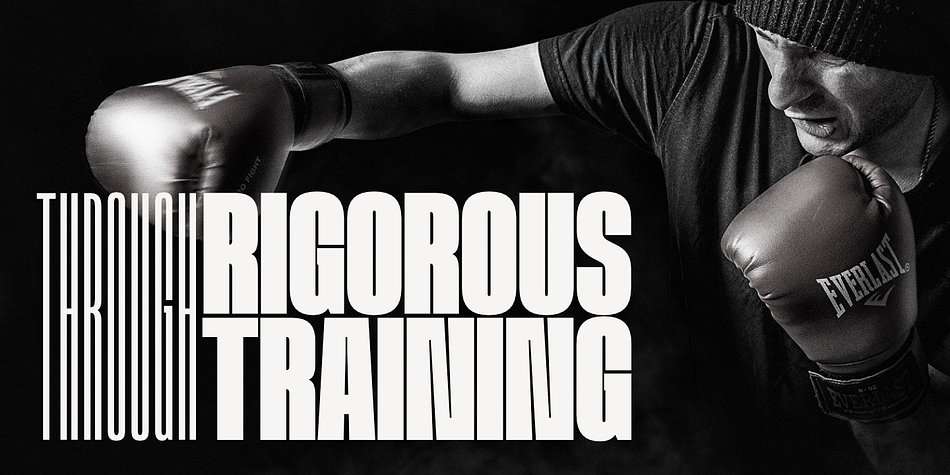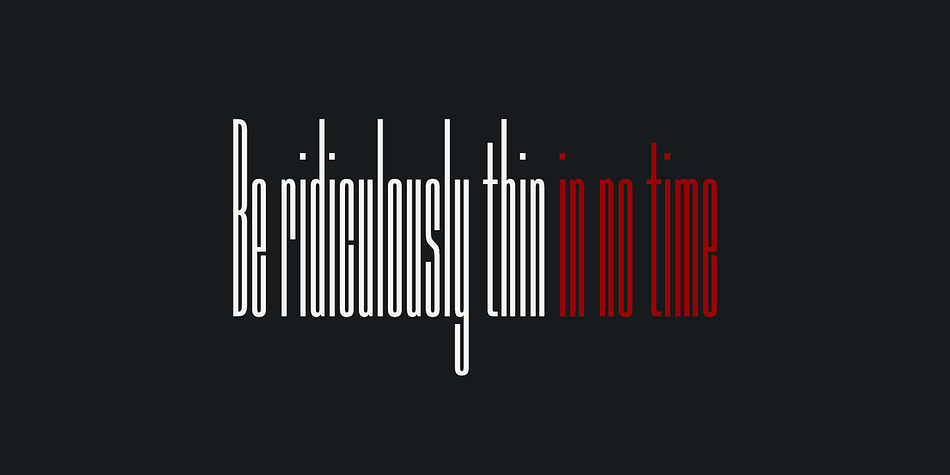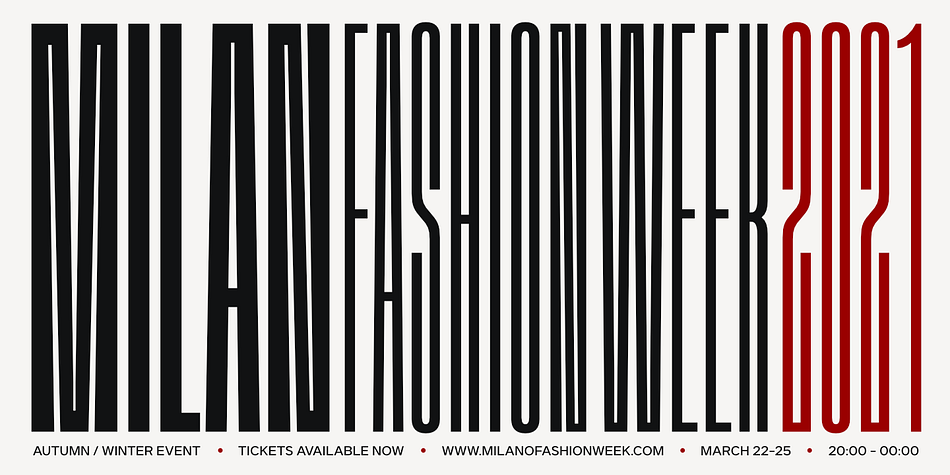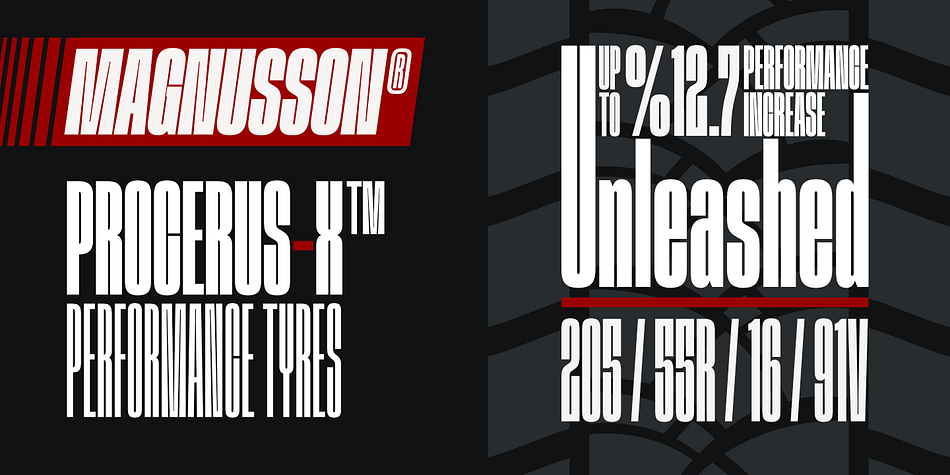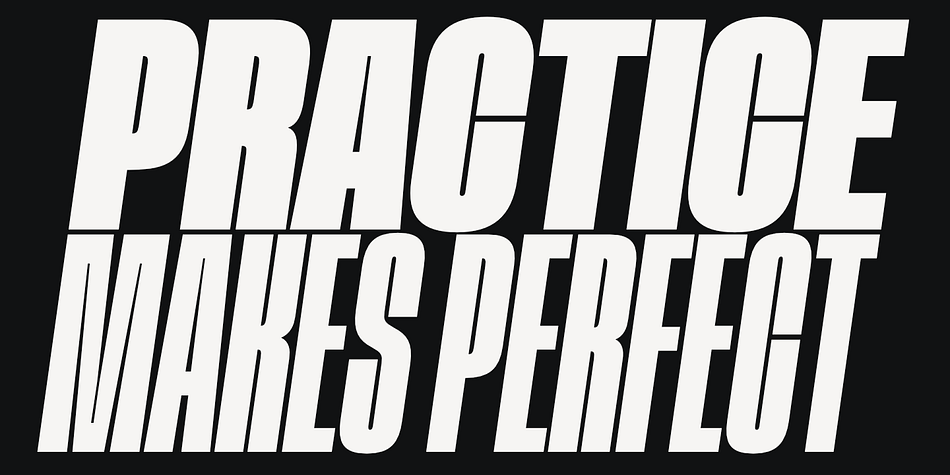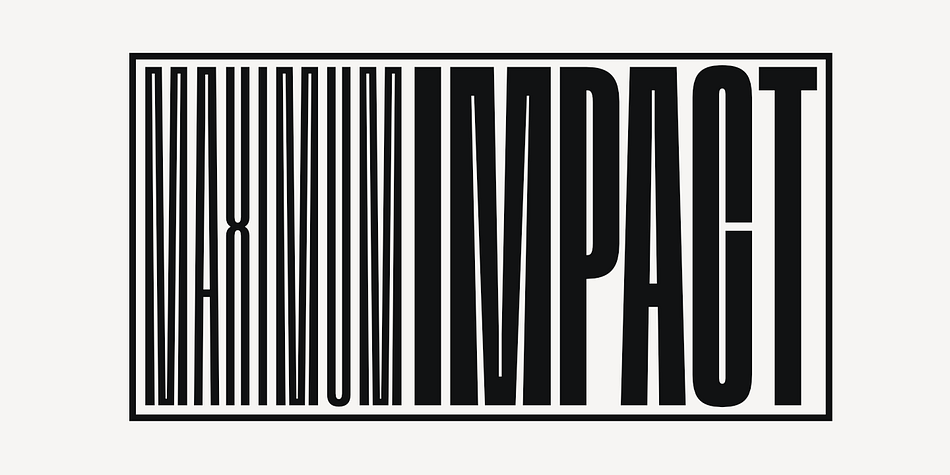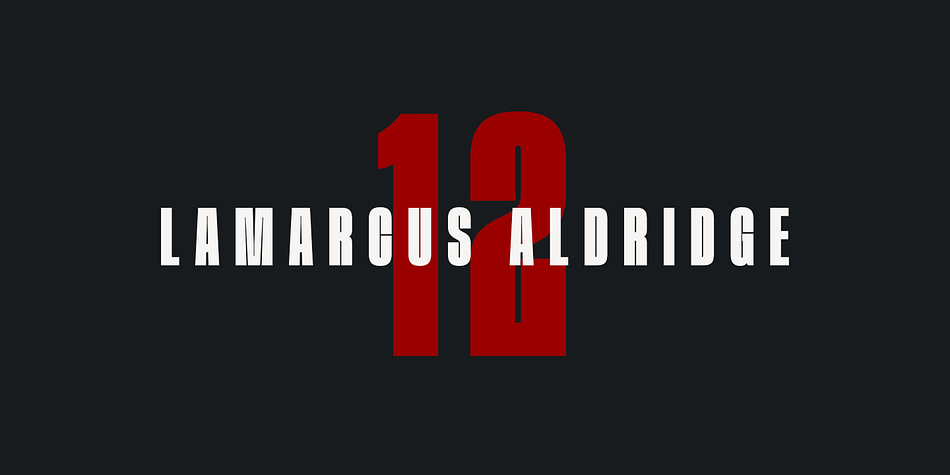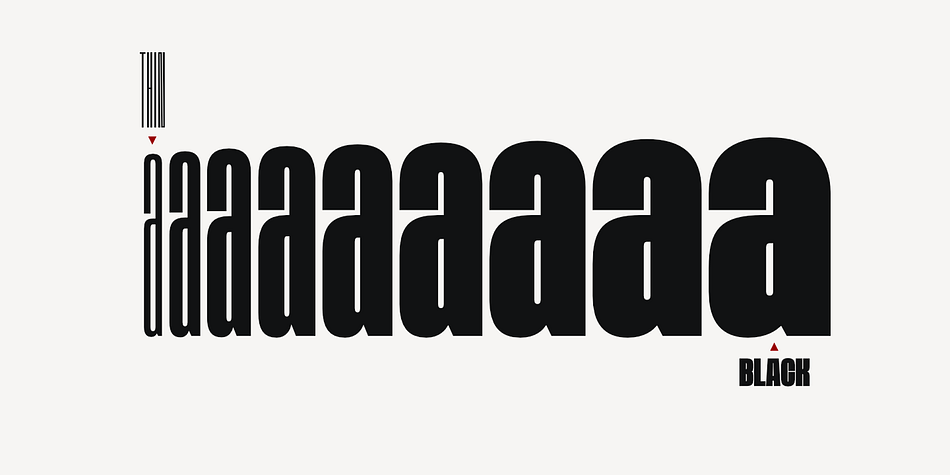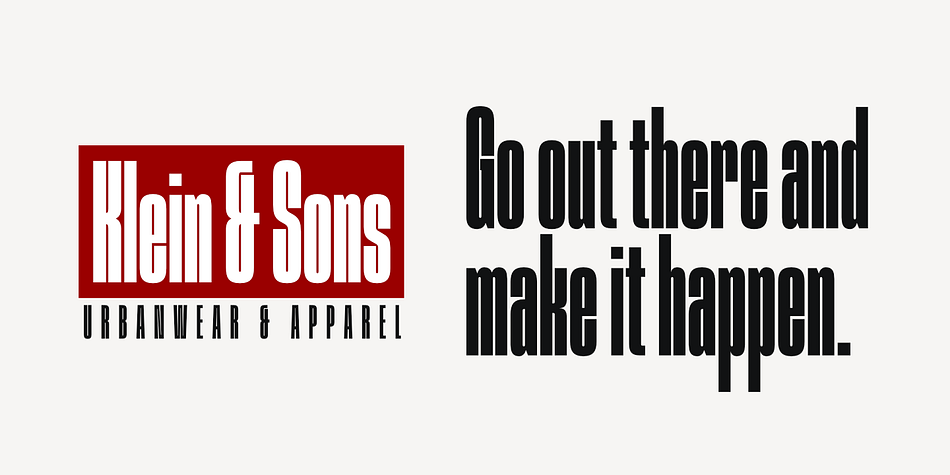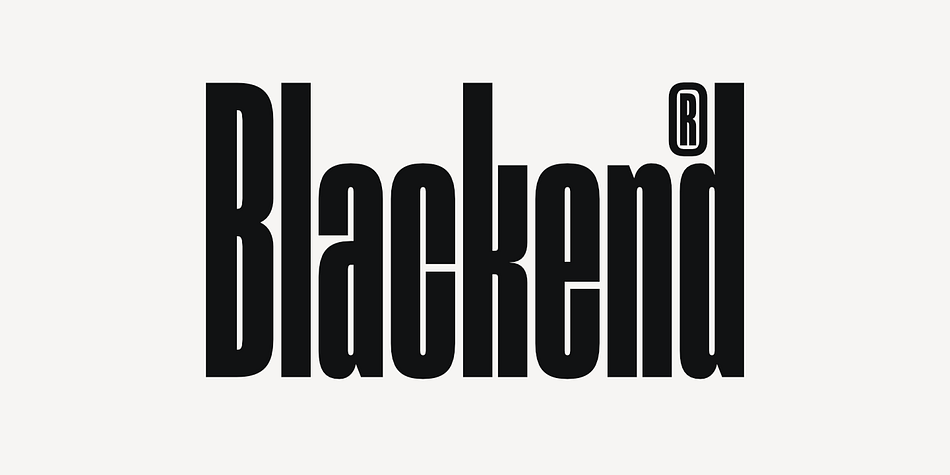
Designed by Ceyhun Birinci, Procerus is a sans serif font family. This typeface has eighteen styles and was published by Artegra.
Procerus was designed to achieve maximum impact on a narrow ground with ultra compressed letterforms. The idea was to explore the beauty in perfectly integrated straight shapes to maximize the use of space while keeping the empty space to a minimum. The result was a stunning display family that makes the type interesting, engaging while still being readable.
There are 18 fonts in the family, ranging from Thin to Black weights along with their italic counterparts. 391 glyphs allows a good amount of multilingual support. Procerus was mainly designed for poster design, packaging design, book covers and advertisement, but it works great for titles, headlines and logo design as well.